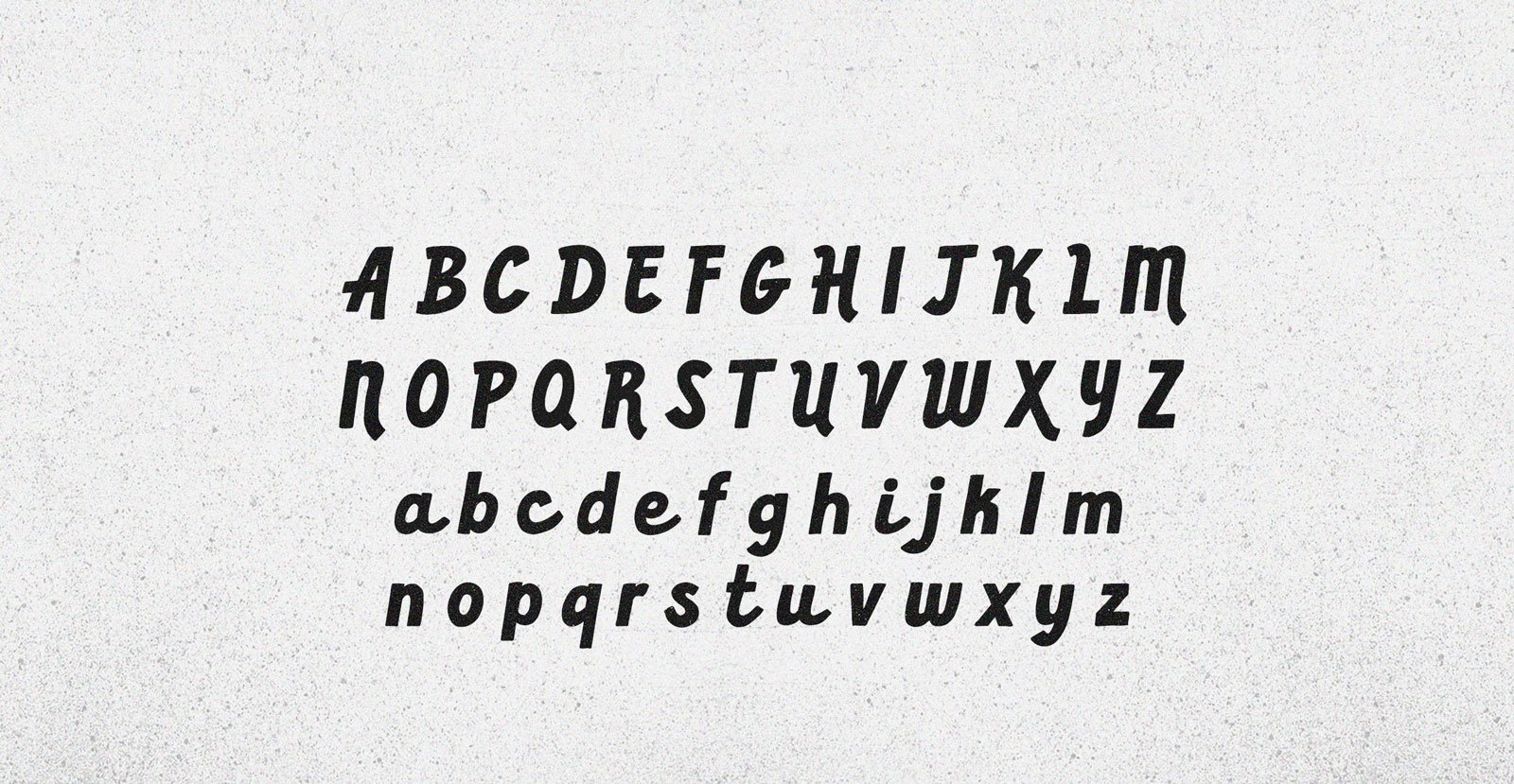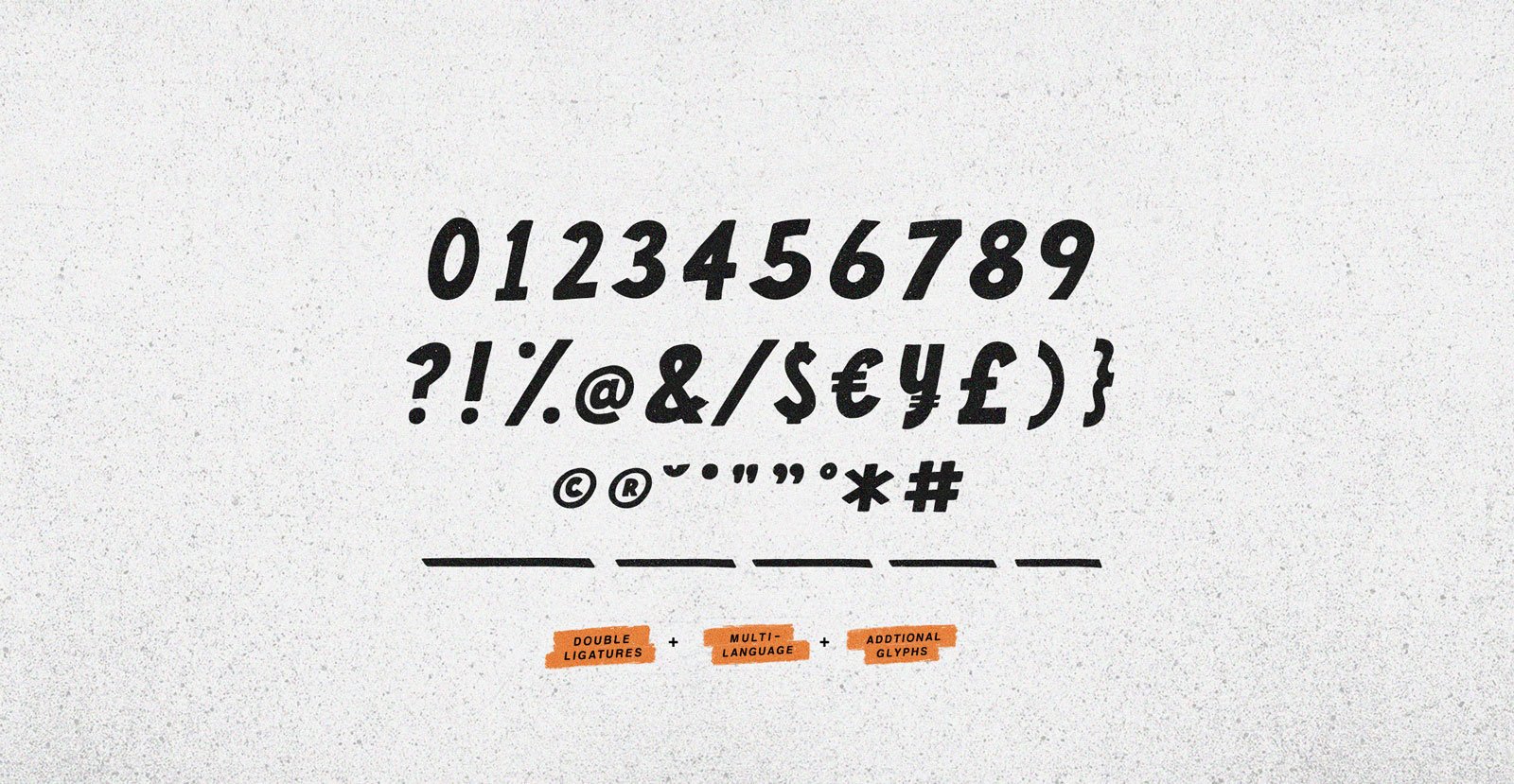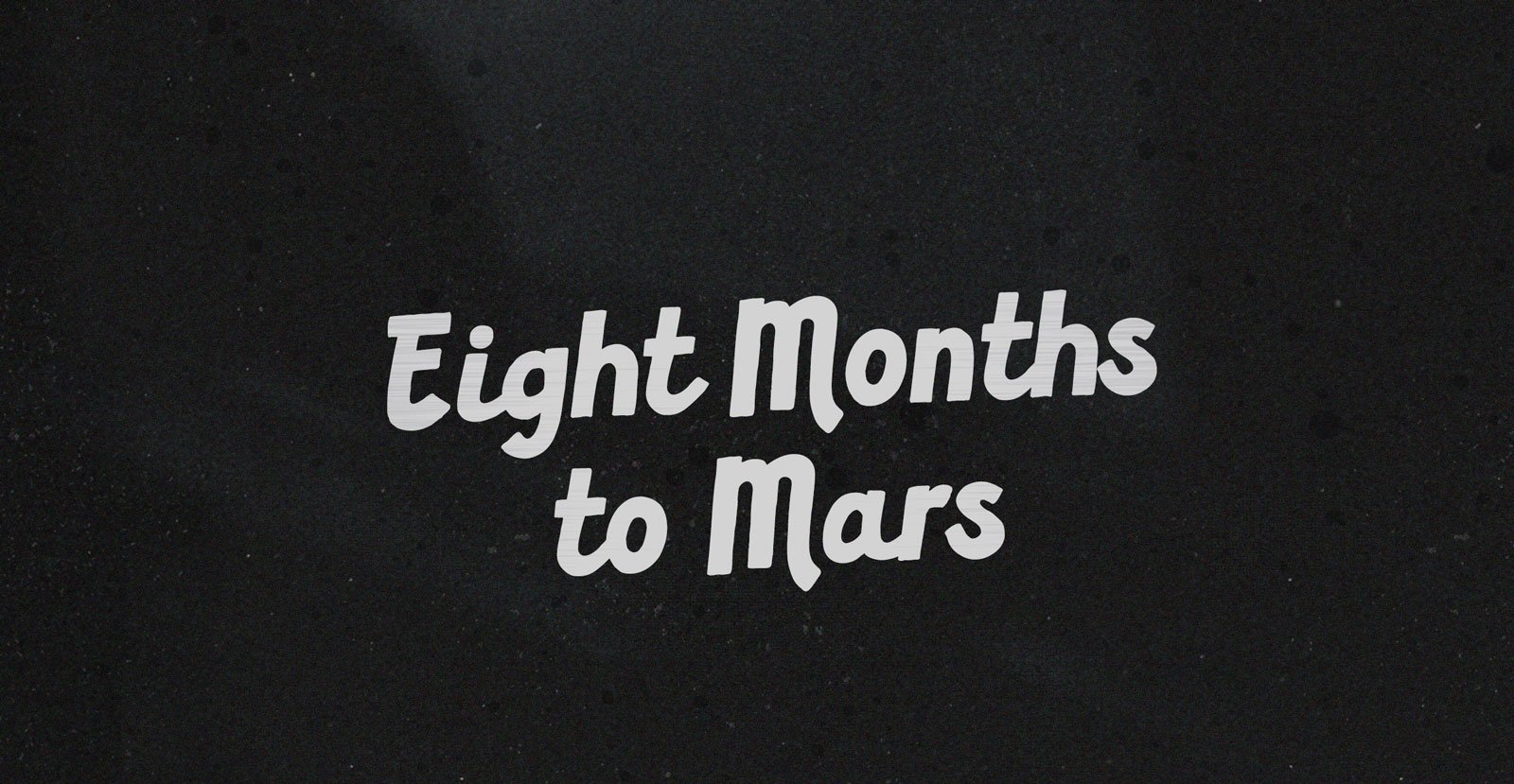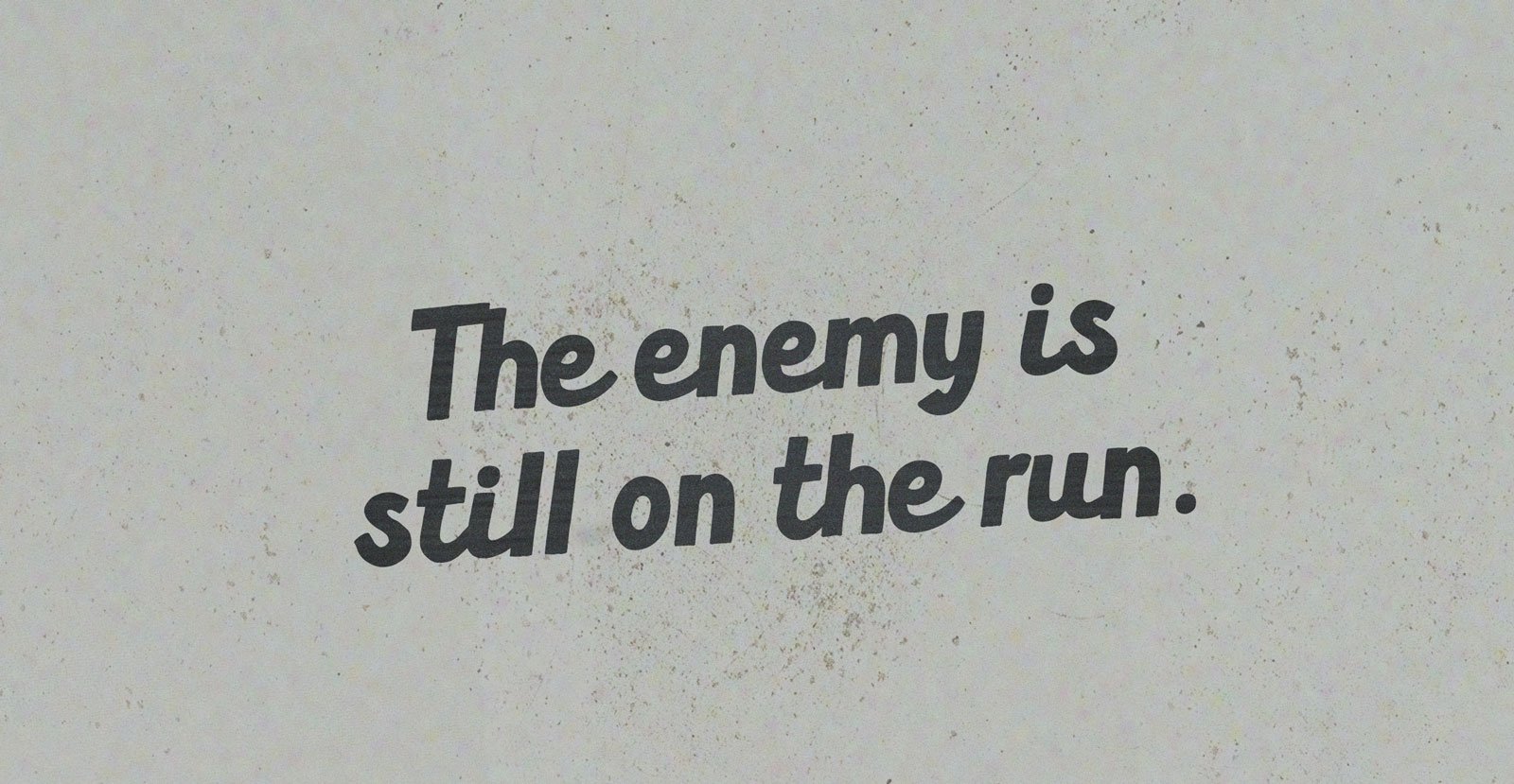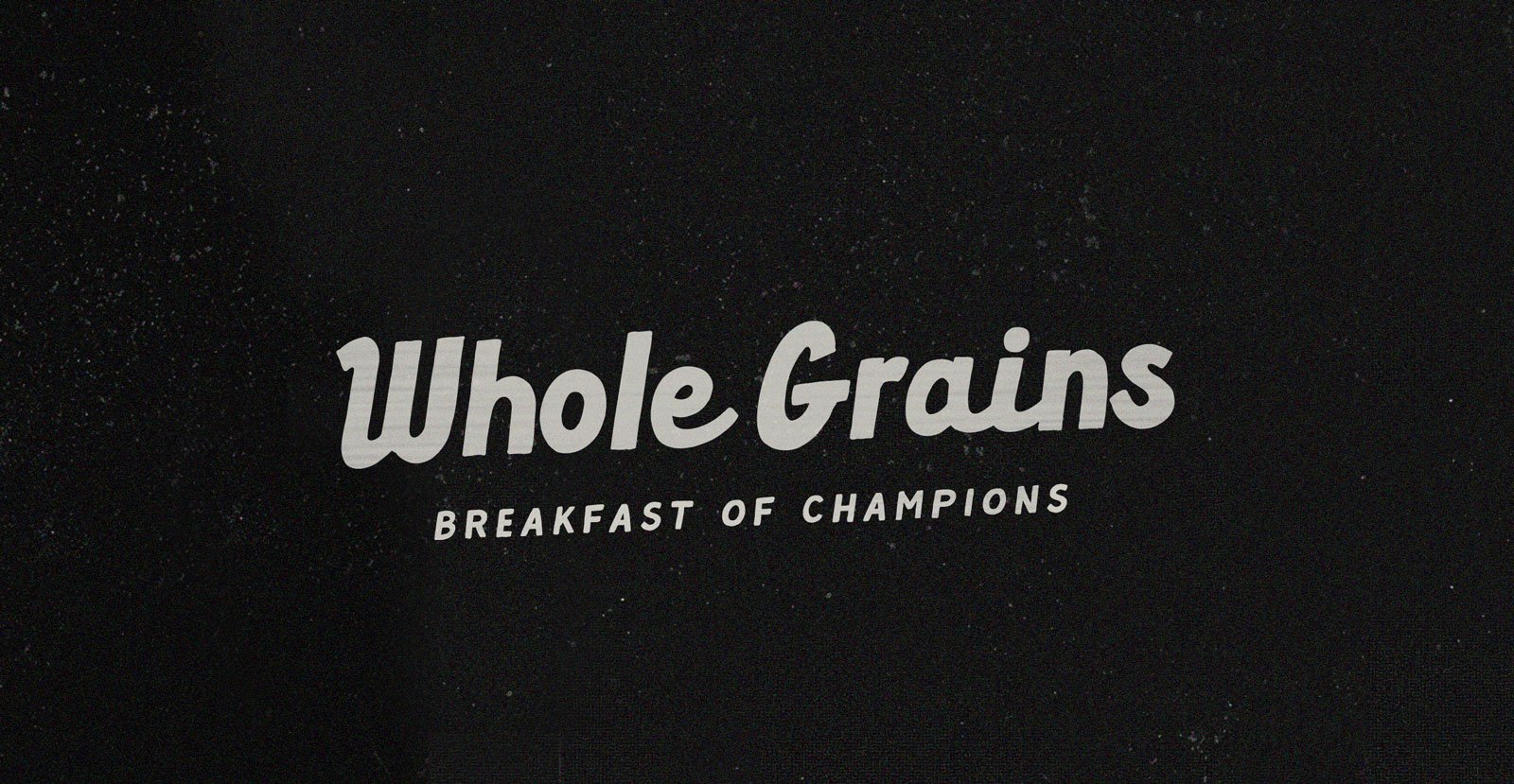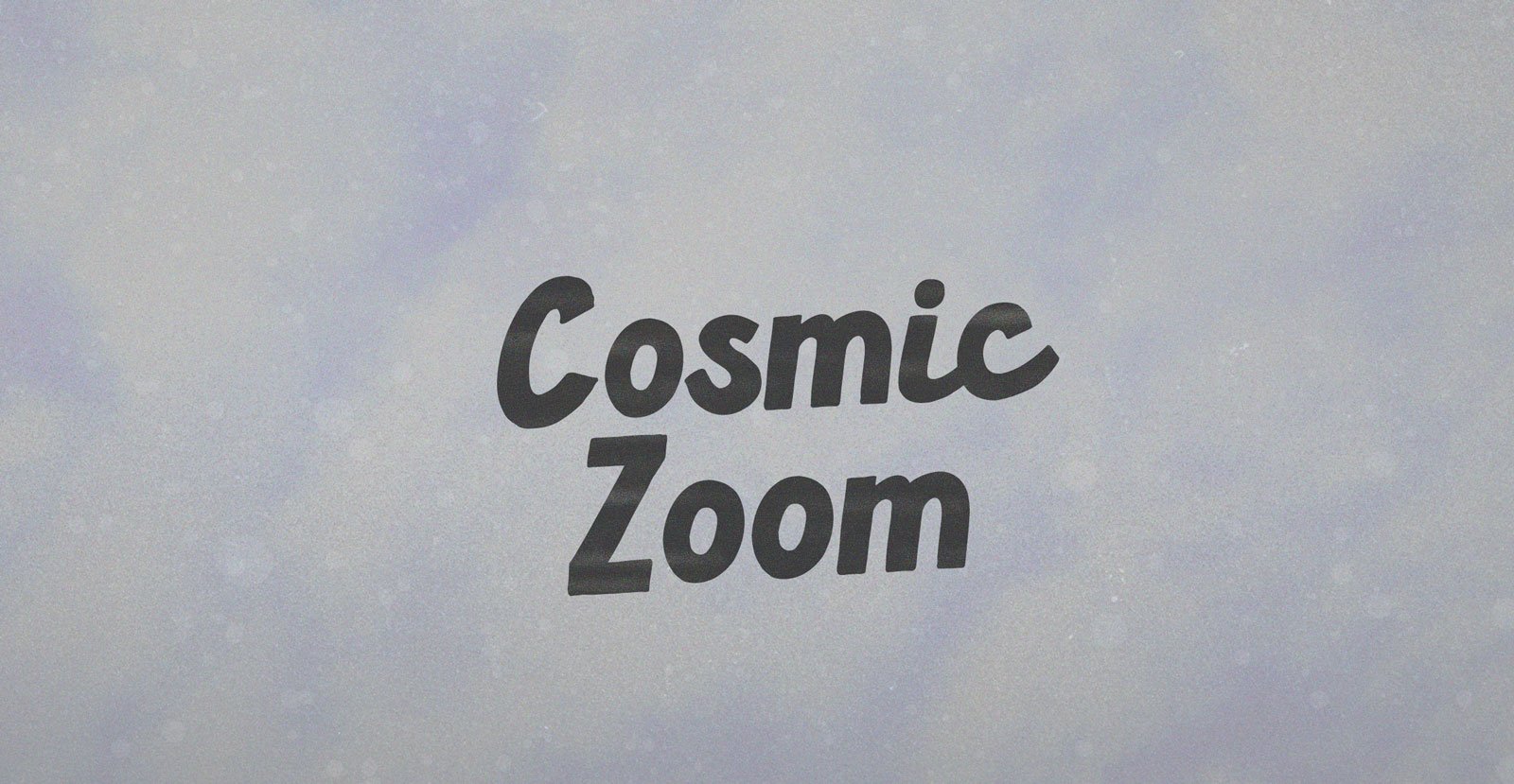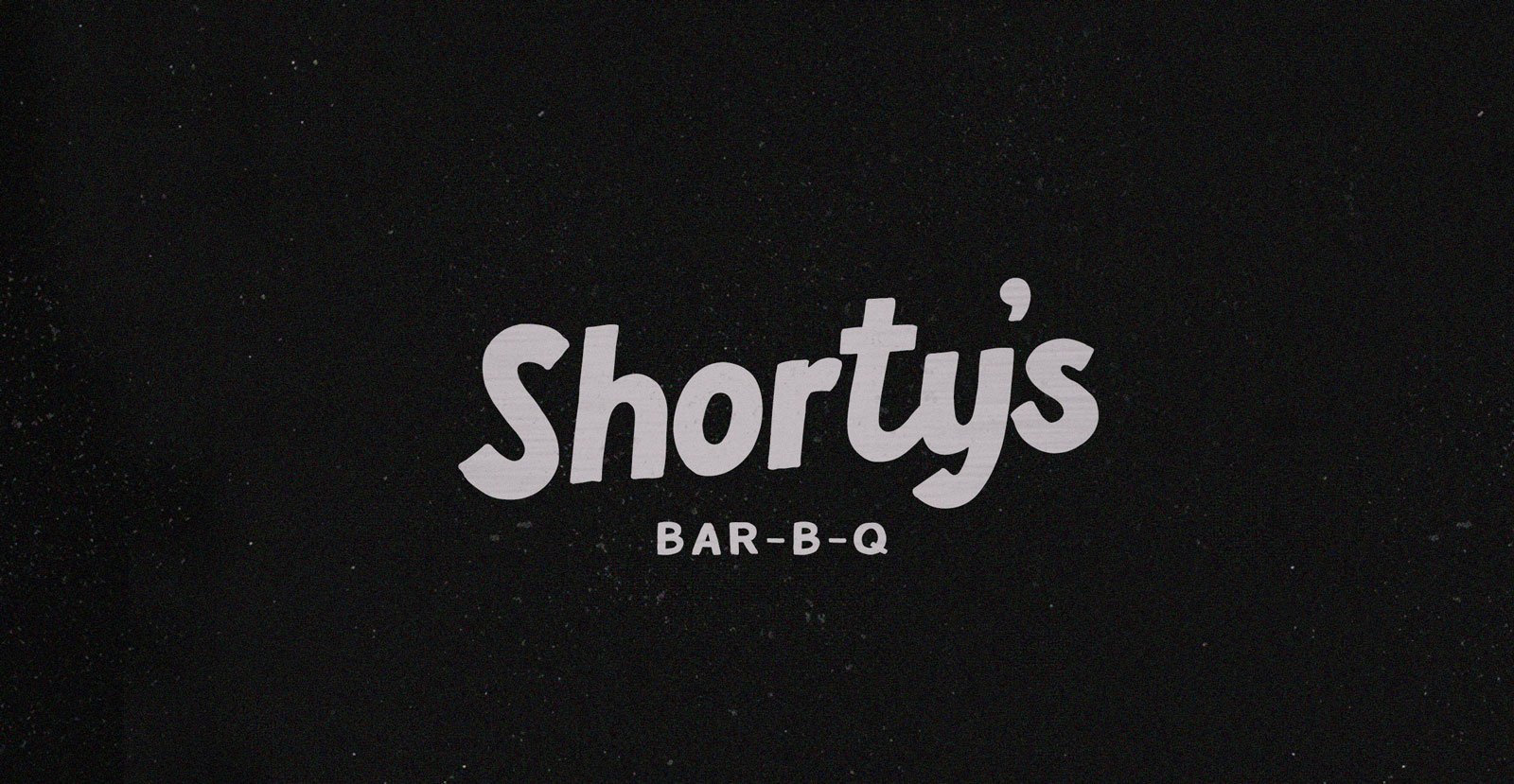
Basic Definition
Lodged between disambiguation and nuance lies the Basic Definition. Boiled down to the simplest, meaning derived from popular use, scattershot where intended: under, amongst, through, close to, and over the extent of its referents.